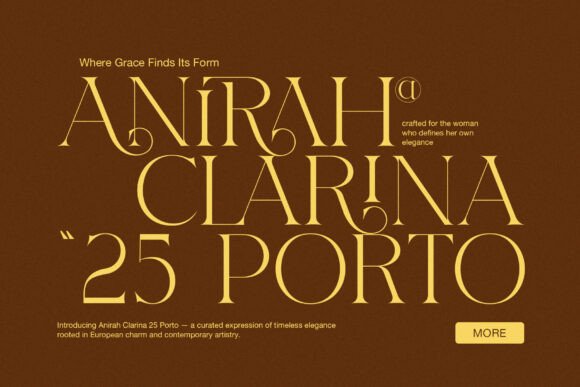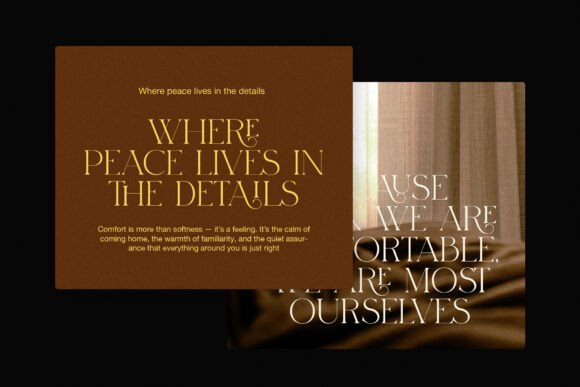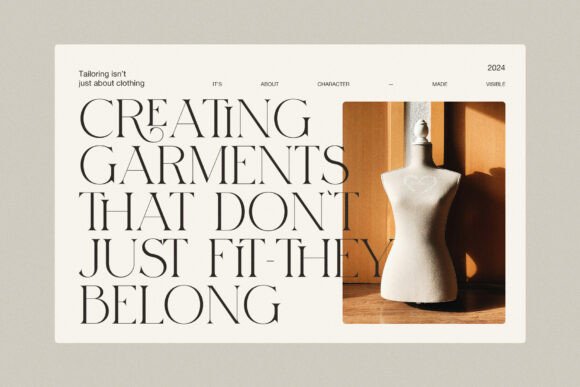
Introduction to Sanida Font
Sanida Elegant Serif blends classic sophistication with a sleek modern edge.
Featuring refined serifs, smooth lines, and stylish ligatures, it’s perfect for luxury branding, editorial layouts, packaging, and more Ideal for fashion, lifestyle, and high-end design, Sanida offers visual impact and elegance in both print and digital formats.
Key Features of Sanida Font
Why Choose Sanida Font?
Sanida Font offers exceptional quality and versatility, making it a valuable addition to your design toolkit. Whether you’re creating for personal projects or commercial use, Sanida Font delivers professional results.